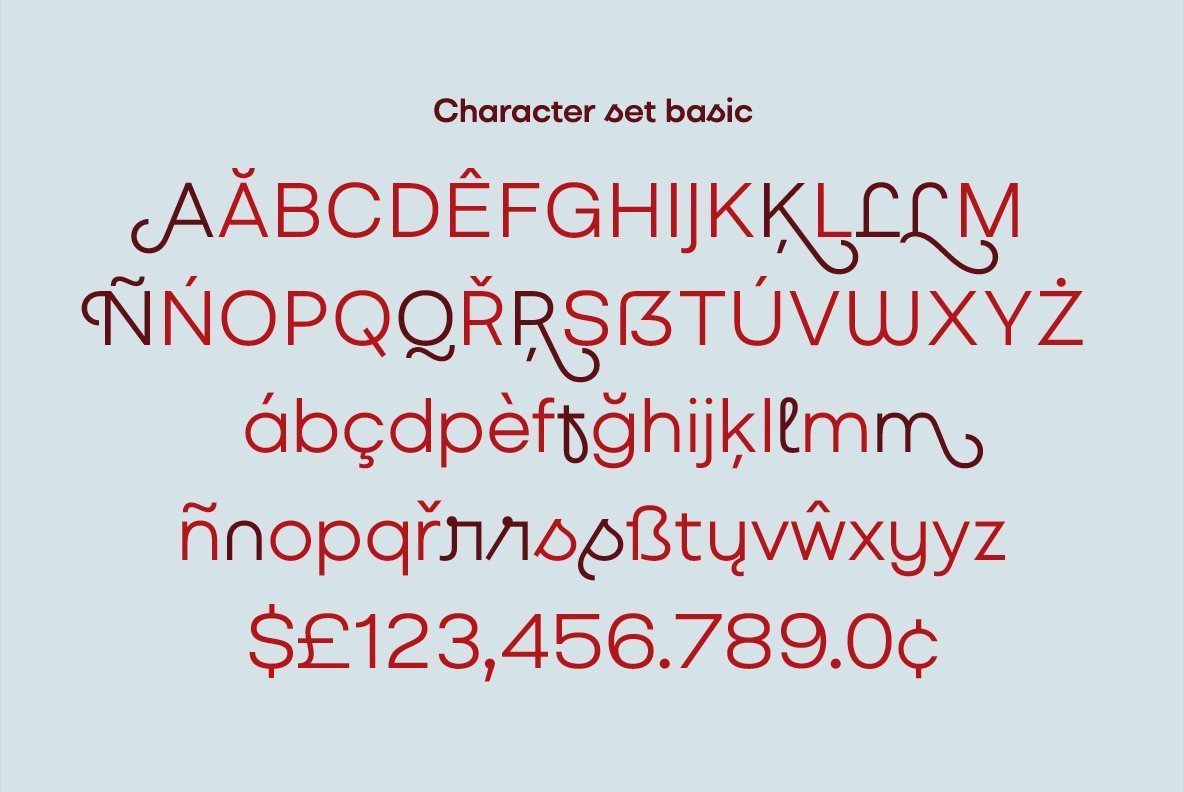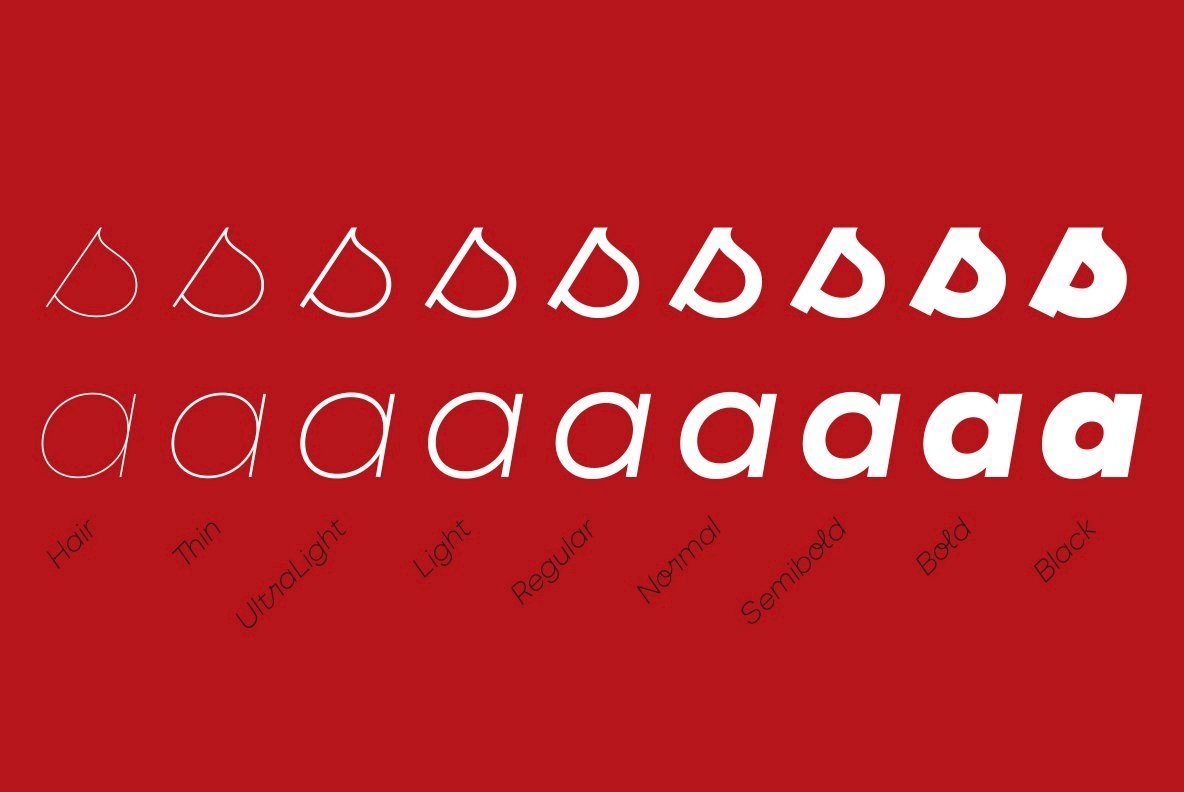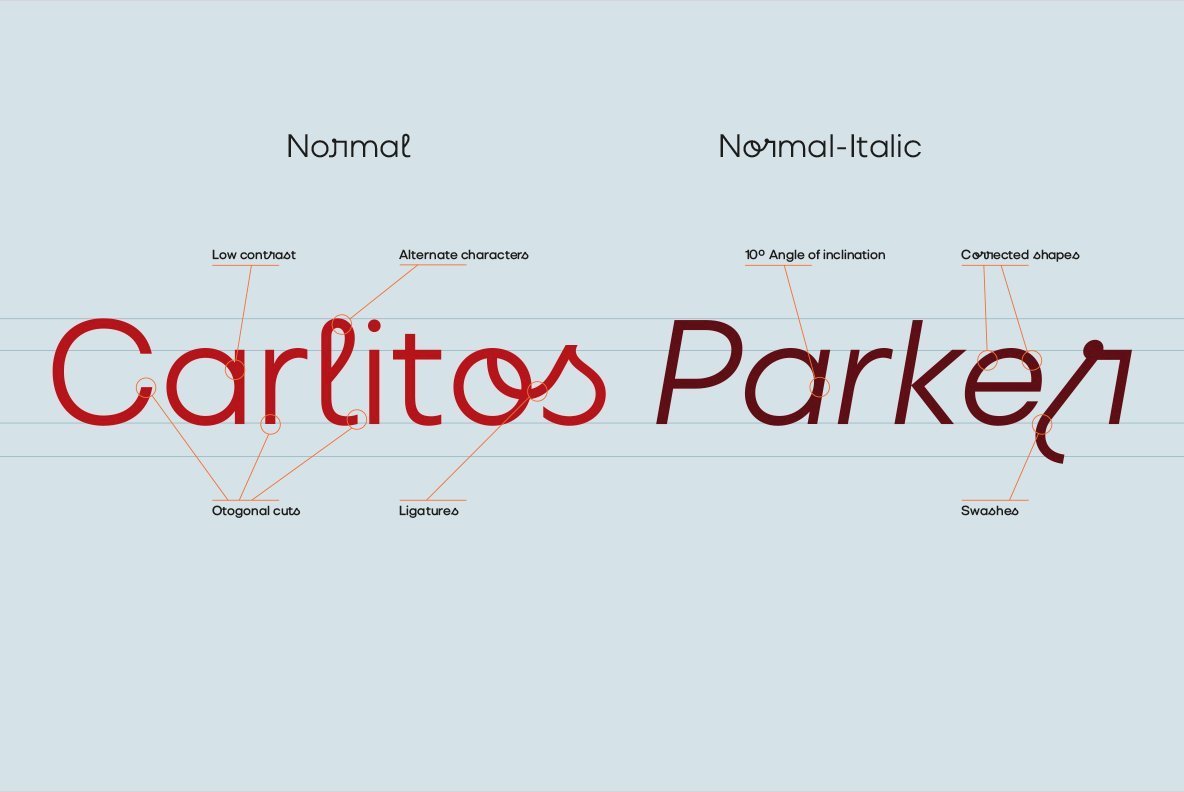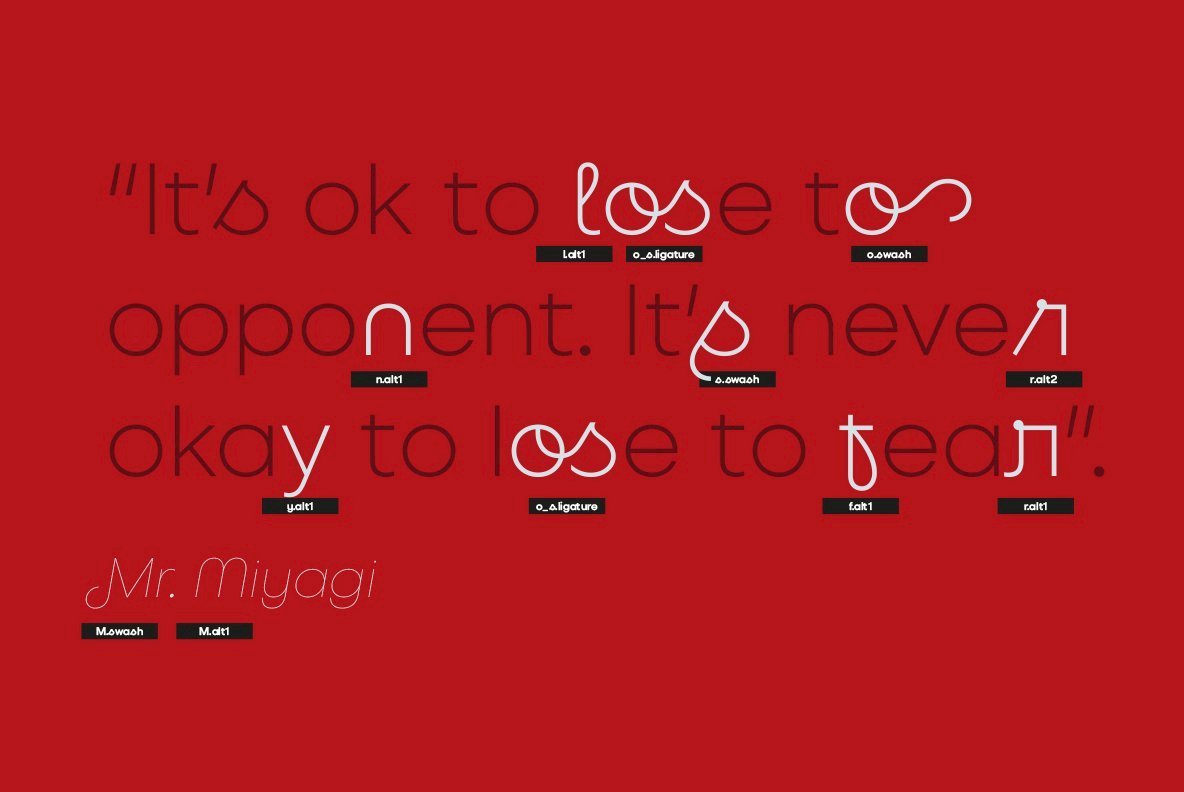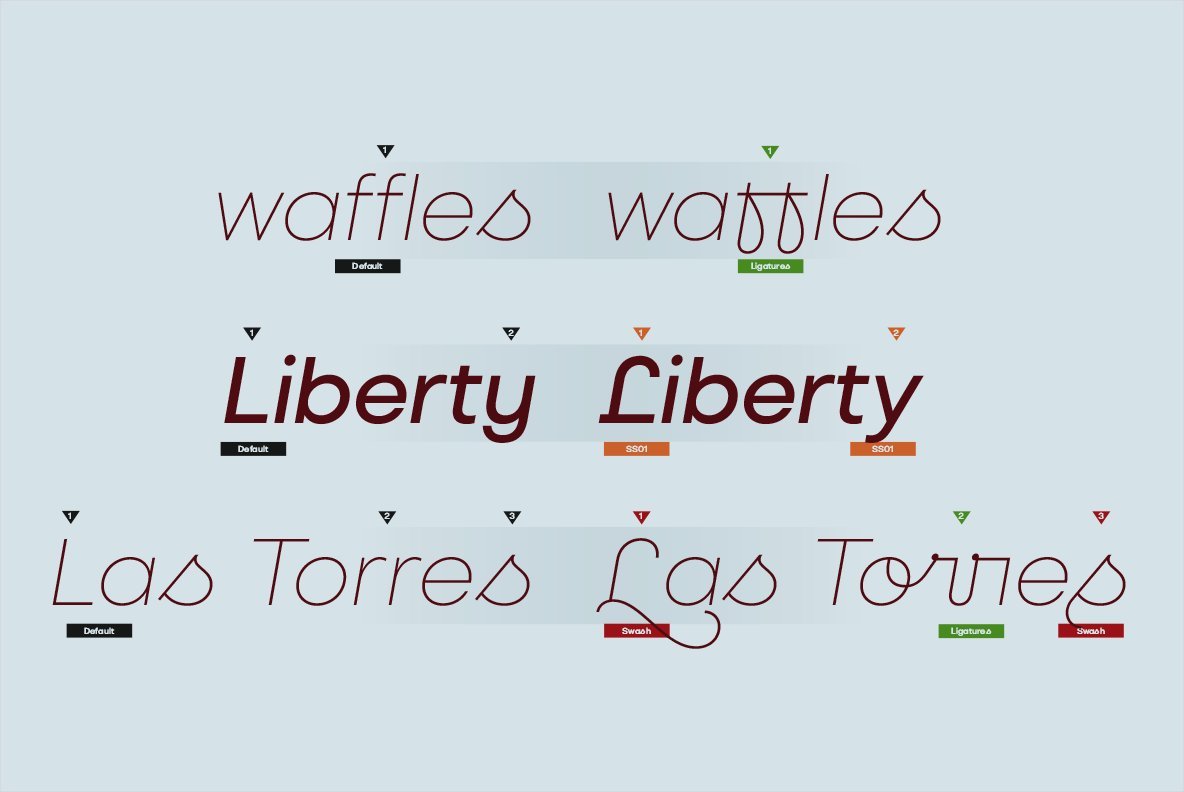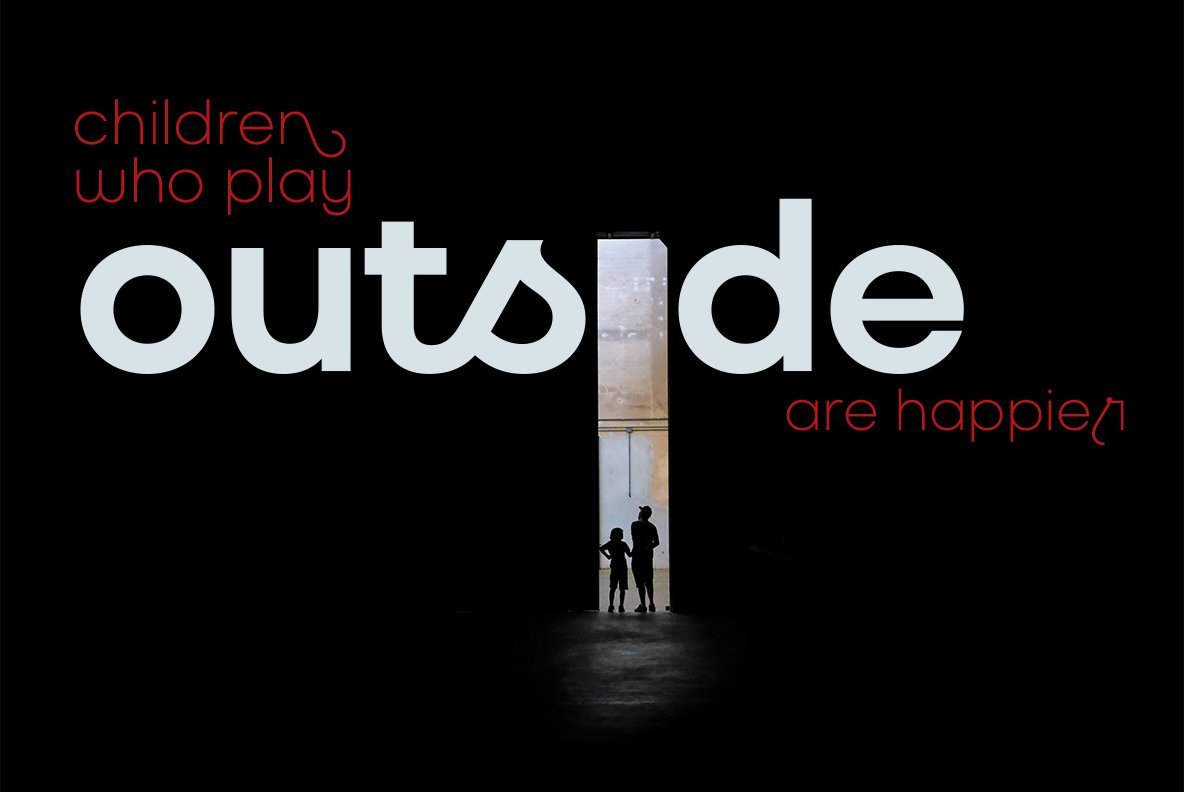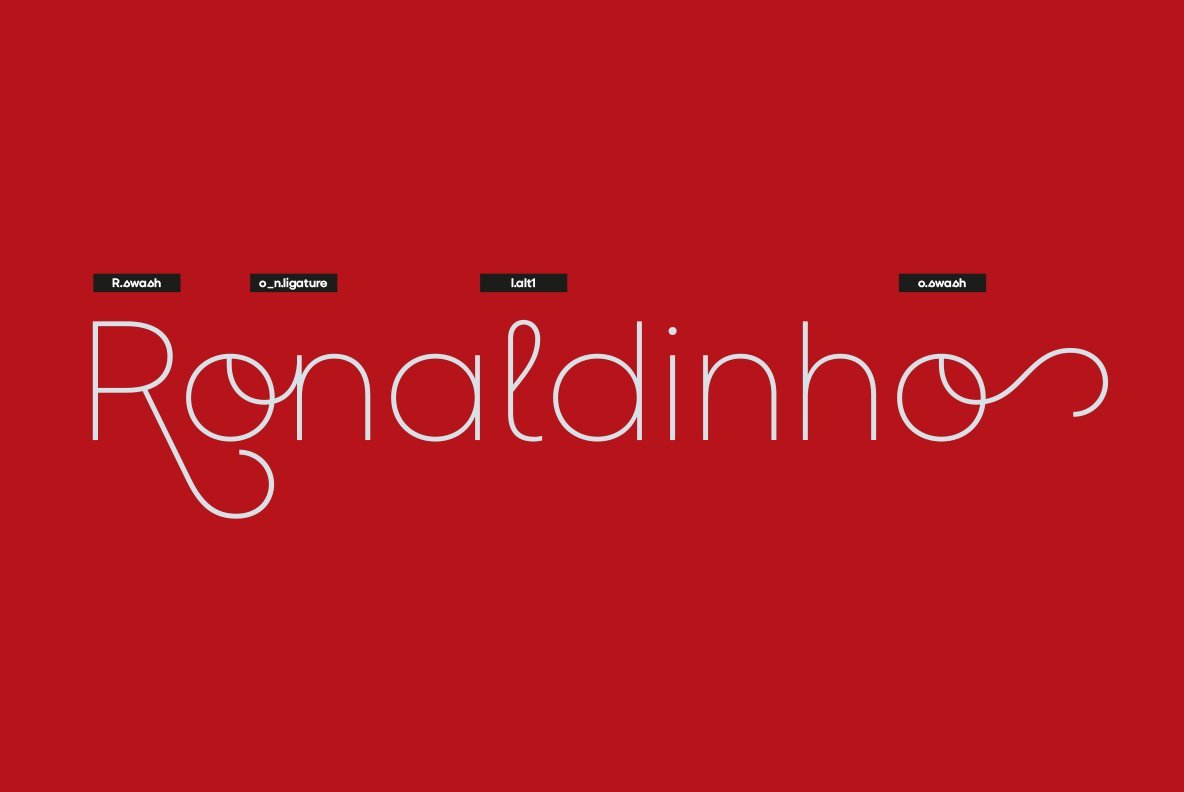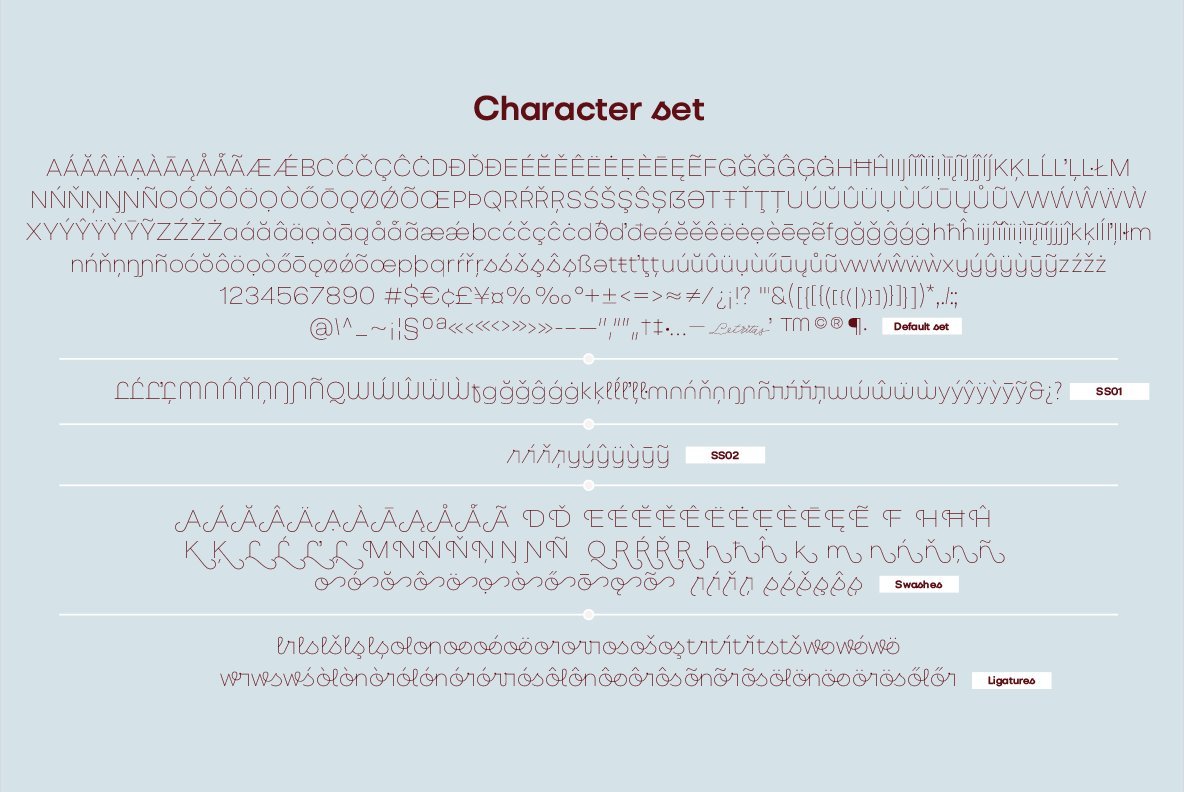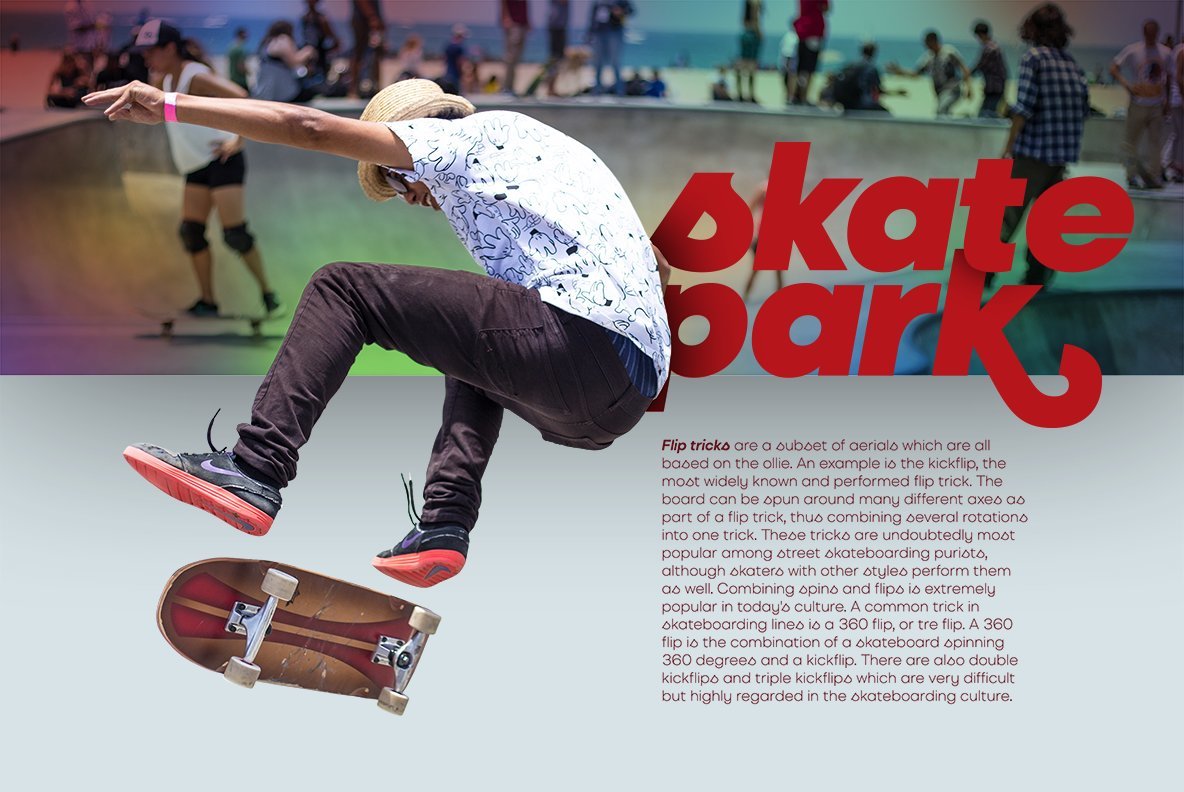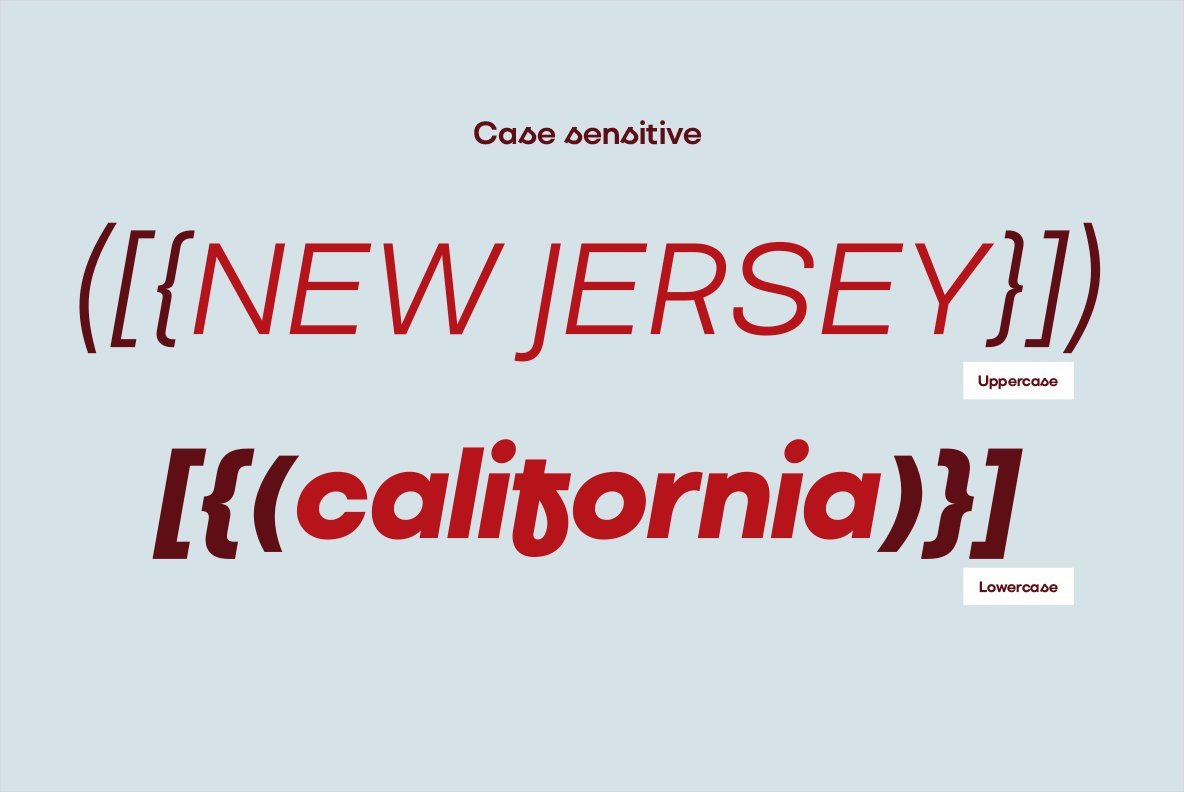
Liliana Font
Liliana is a geometrical typeface, born throughout comprehensive formal studies while testing new ways of displaying certain words and sentences. The essential structure of Liliana is very conservative: It can look similar to other geometrical typographies, however, it has unique features that make this project very special.
Liliana is a typeface that will work perfectly while setting short texts, words, and phrases as well. It shall perform greatly even when the paragraph is too short. Thanks to the versatility of its alternate characters, Liliana is perfect to achieve eye-catching texts.
The spirit of this typography is focused on its “s” character, which originates from manuscript writings and provides a very special identity. If the text does not contain the letter "s", the intended personality can still be achieved by using alternate characters such as "f", "l", “r” and “L”, which are aligned with the same concept. On top of that, may all this still not be enough, you can furthermore use its ligatures and swashes. It is actually hard not to set a spectacular text with Liliana!
Liliana is a typeface optimal for being used in marketing assets, packaging design, magazines, branding, film captions, headlines, editorial, quotes, logos, corporate identity, and motion graphics.
The italic version has a 10-degree slant. This feature is intended to convey a gorgeous feeling of tension, power, and agility. It’s very interesting to realize how the dynamism in the italic characters works when compared with the regular ones.
The typeface has 9 weights, ranging from “thin” to “heavy”, and two versions: "regular" and "italic". Its 18 files contain 642 characters with ligatures, alternates, and swashes. It supports 219 Latin-based languages, spanning through 212 different countries.